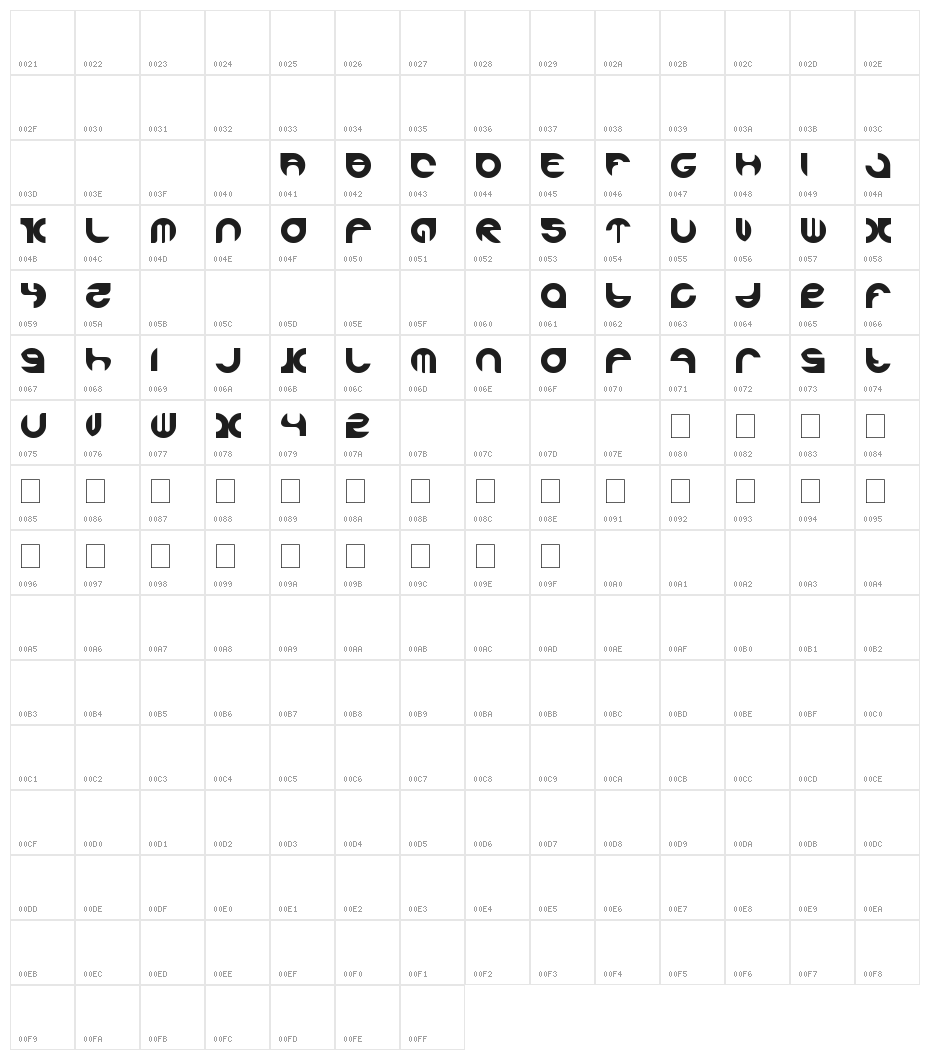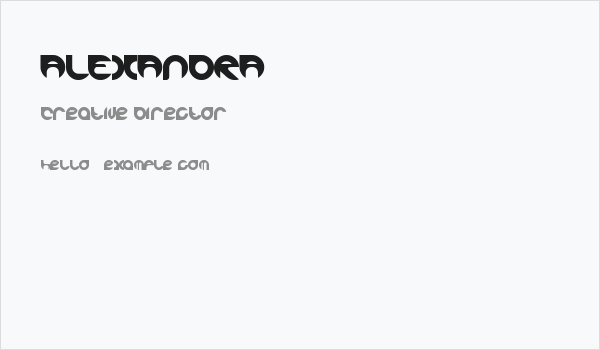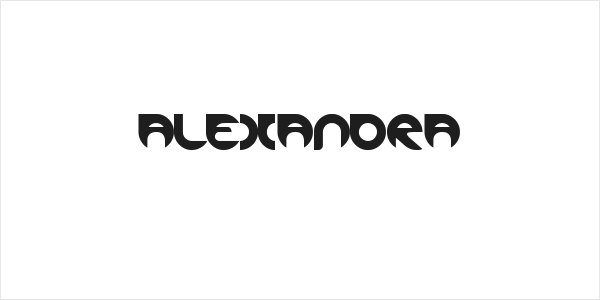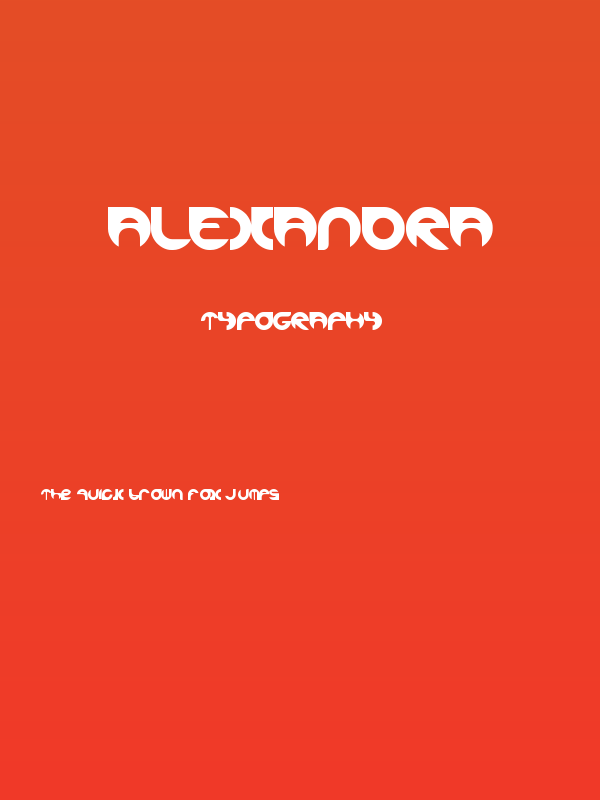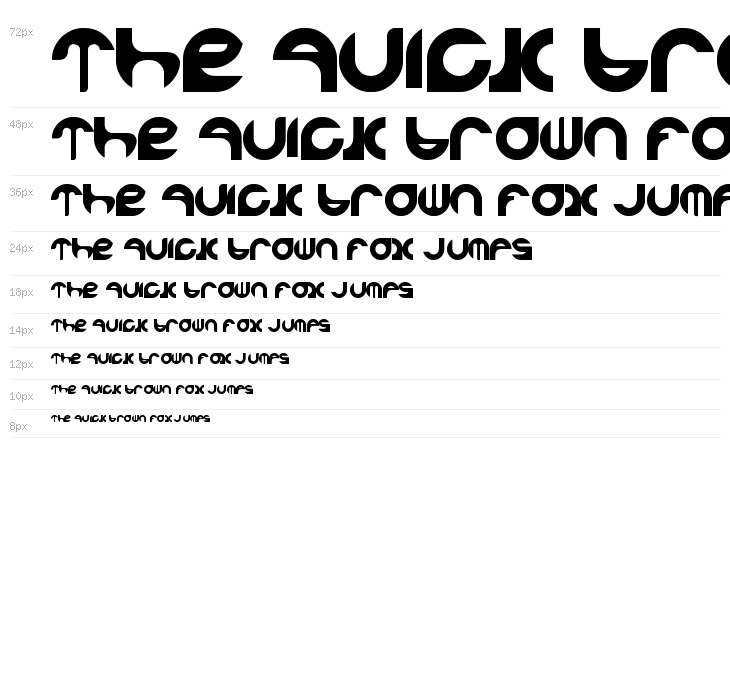
ALEXANDRA Font
ALEXANDRA Description
This font features a bold and futuristic design with a unique geometric style. Each character is crafted with a combination of sharp angles and smooth curves, creating a visually striking appearance. The uppercase and lowercase letters maintain a consistent design language, with some characters featuring cut-out sections that add to the modern aesthetic. The numbers and special characters follow the same stylistic approach, ensuring uniformity across all elements. This font is ideal for projects that require a contemporary and innovative look.
| Proposed Projects | Ideal for branding, logos, posters, and digital media projects that require a modern and innovative look. |